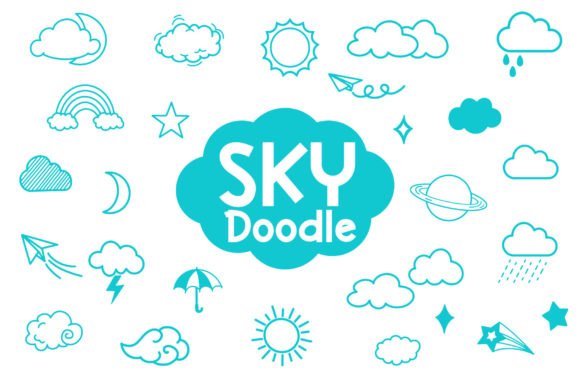
Unleash Your Creativity with Sky Doodle Font: A Visual Symphony for Designers and Artists
In the realm of digital art, fonts are more than just a collection of letters; they are expressive tools that shape the visual landscape. They have the power to transport us to different worlds, evoke emotions, and convey messages in a captivating way. Among the vast array of fonts, Sky Doodle stands out as a true masterpiece, a font designed to unleash your creativity and ignite your imagination.
Sky Doodle is not just a font; it's an artistic playground where your creativity can run wild. Its unique dingbats style, meticulously crafted by Fox7, brings a touch of whimsy and charm to any project. Whether you're a seasoned designer, an aspiring artist, or simply someone who loves to express themselves through digital art, Sky Doodle is the perfect font to elevate your creations.
Step into a world where imagination knows no bounds. Use Sky Doodle to create eye-catching logos that leave a lasting impression, or design stunning social media graphics that captivate your audience. Let your creativity soar as you craft unique invitations, greeting cards, and posters that stand out from the crowd. The possibilities are endless, and the only limit is your imagination.
With Sky Doodle, you'll discover a font that seamlessly blends versatility and artistic flair. Whether you're working on a whimsical children's book, a captivating presentation, or a personal art project, Sky Doodle effortlessly adapts to your vision. Its distinct style adds a touch of magic to any design, making it the perfect choice for those who seek to create truly unforgettable visual experiences.
Don't settle for ordinary fonts that fail to inspire. Embrace the extraordinary with Sky Doodle Font. Let its creative energy flow through your designs, and watch as your projects come to life with a unique charm and personality. Unleash your inner artist and embark on a creative journey like never before. The world of digital art awaits, and Sky Doodle is your passport to greatness.